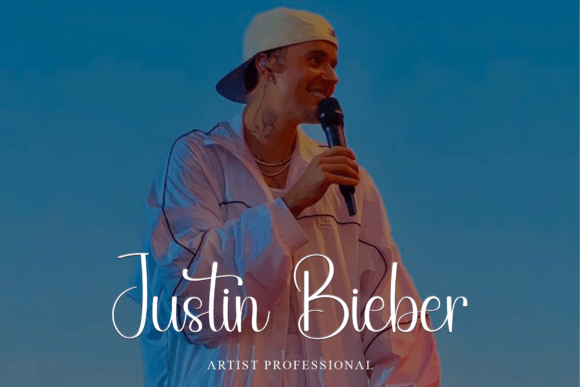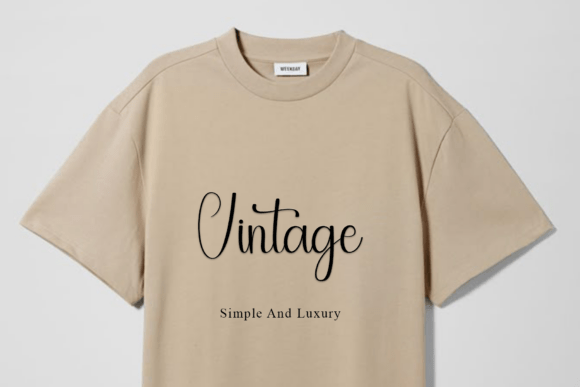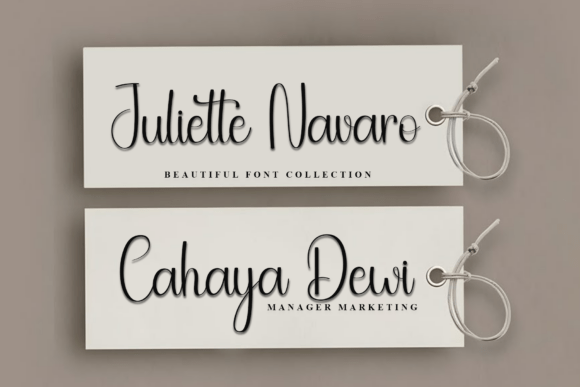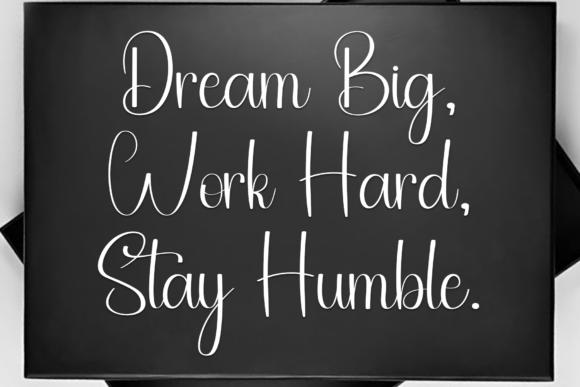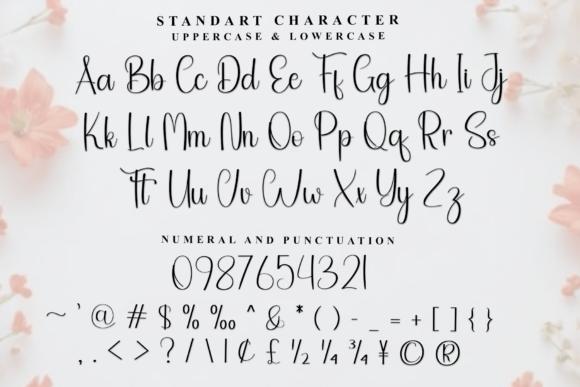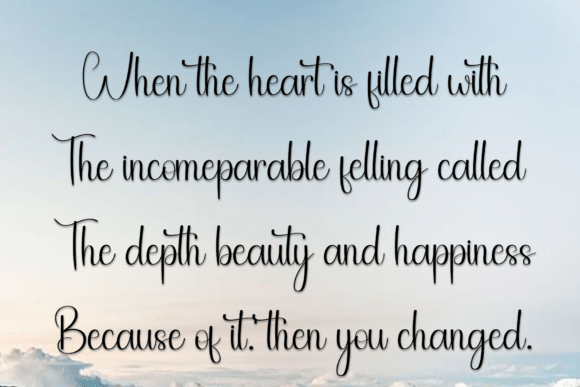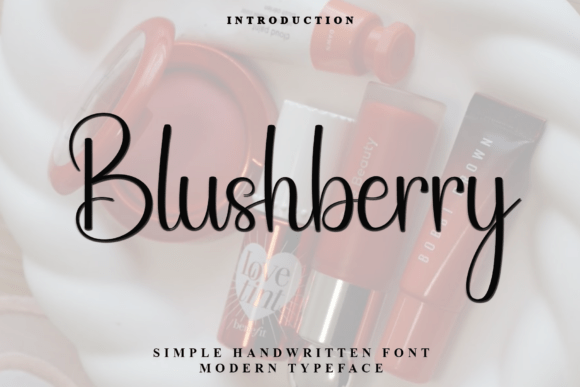
Introducing Blushberry Font: The Perfect Blend of Casual Charm and Modern Elegance
In the world of typography, few fonts manage to capture the essence of handwriting while exuding a sense of modern sophistication. Blushberry Font is one such gem that seamlessly blends casual charm with a contemporary twist, making it an ideal choice for designers and crafters looking to add a personal touch to their projects.
The Characteristics of Blushberry Font
Blushberry Font is a handwritten script font that boasts fluid strokes and natural curves, mimicking the authenticity of real handwriting. Its smooth flow and subtle elegance make it perfect for a wide range of applications, from branding and wedding invitations to quotes and lifestyle blog graphics.
One of the standout features of Blushberry Font is its ability to bring a sense of warmth and personality to any design. The font’s casual charm is balanced by a modern sensibility, making it versatile enough to be used in both traditional and digital formats.
Blushberry Font is incredibly versatile, making it suitable for a wide range of projects. Here are just a few examples of how you can use this beautiful font:
• Branding: Add a personal touch to your brand’s identity with Blushberry Font. Its unique blend of casual charm and modern elegance makes it perfect for logos, business cards, and other marketing materials.
• Wedding Invitations: Make your wedding invitations truly special with Blushberry Font. Its elegant and sophisticated feel is perfect for formal and informal wedding stationery.
• Quotes and Graphics: Add a touch of personality to your quotes and graphics with Blushberry Font. Its fluid strokes and natural curves make it perfect for creating visually appealing designs that are sure to grab attention.
• Lifestyle Blog Graphics: Take your lifestyle blog to the next level with Blushberry Font. Its modern and elegant feel makes it perfect for creating eye-catching graphics and social media posts.
Why Choose Blushberry Font?
With so many fonts available, why choose Blushberry Font? Here are just a few reasons why designers and crafters love this beautiful font:
• Unique and Authentic: Blushberry Font is a truly unique and authentic handwritten script font that adds a personal touch to any design.
• Versatile: Blushberry Font is incredibly versatile, making it suitable for a wide range of projects and applications.
• Elegant and Sophisticated: Blushberry Font exudes a sense of elegance and sophistication, making it perfect for formal and informal designs.
• Easy to Read: Despite its elegant feel, Blushberry Font is incredibly easy to read, making it perfect for body text and captions.
Tips for Using Blushberry Font
To get the most out of Blushberry Font, here are a few tips to keep in mind:
• Use it Sparingly: Blushberry Font is a statement font, so use it sparingly to add emphasis and personality to your designs.
• Pair it with Other Fonts: Blushberry Font pairs perfectly with other fonts, so don’t be afraid to experiment with different combinations.
• Experiment with Colors: Blushberry Font looks stunning in a variety of colors, so experiment with different hues to find the perfect match for your design.
Blushberry Font is a truly unique and versatile handwritten script font that brings a personal and stylish feel to any project. Its smooth flow and subtle elegance make it perfect for a wide range of applications, from branding and wedding invitations to quotes and lifestyle blog graphics. Whether you’re a designer or crafter, Blushberry Font is sure to become a favorite in your collection.